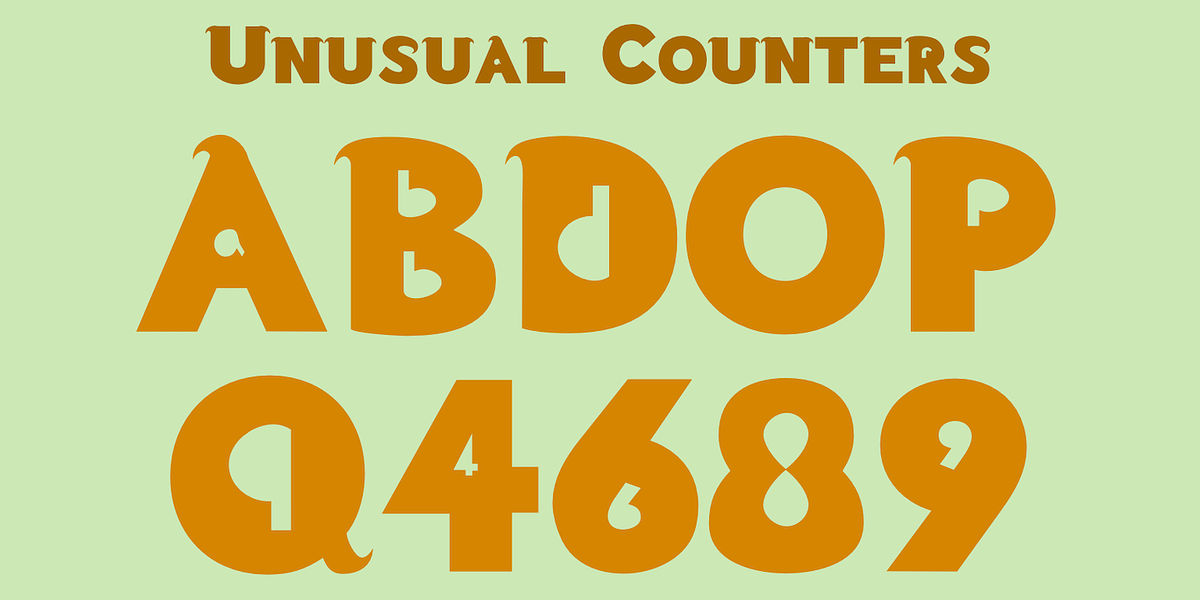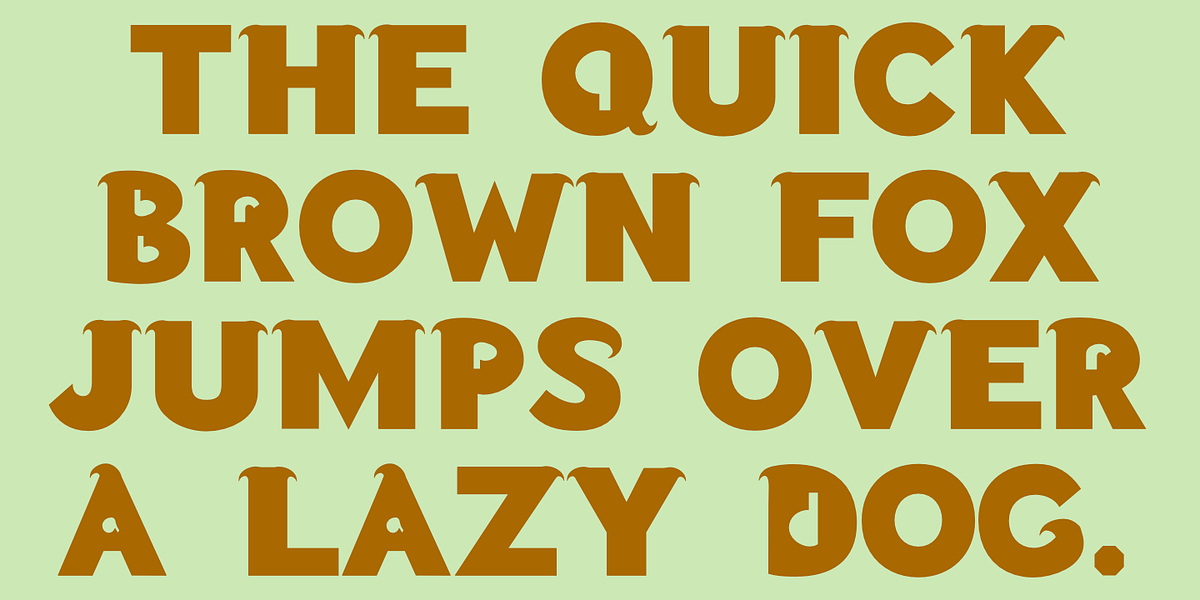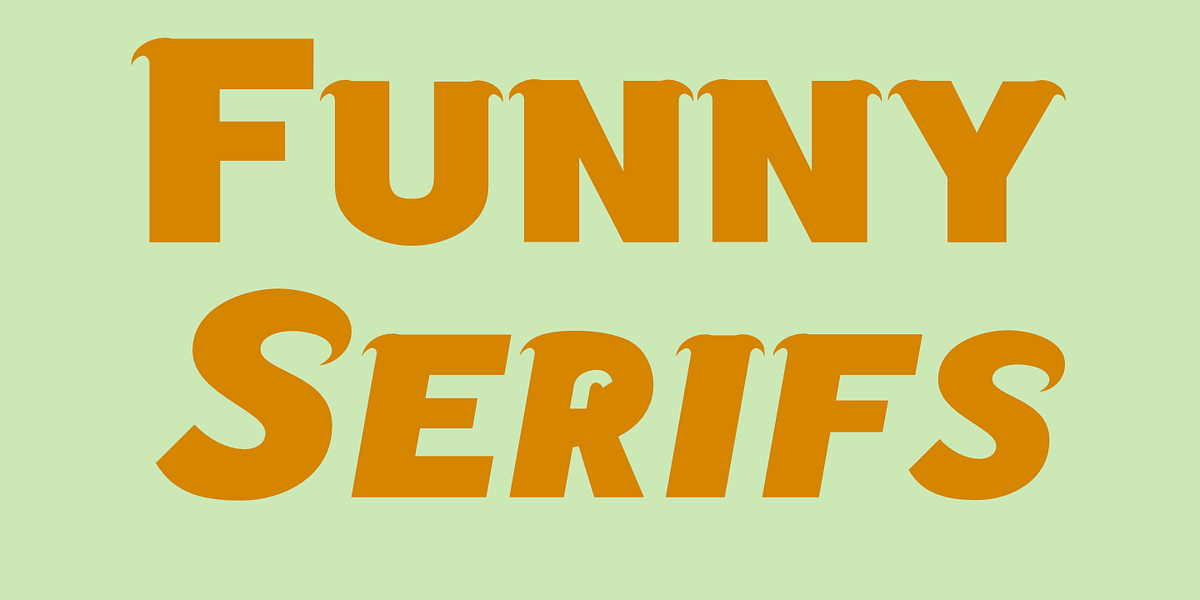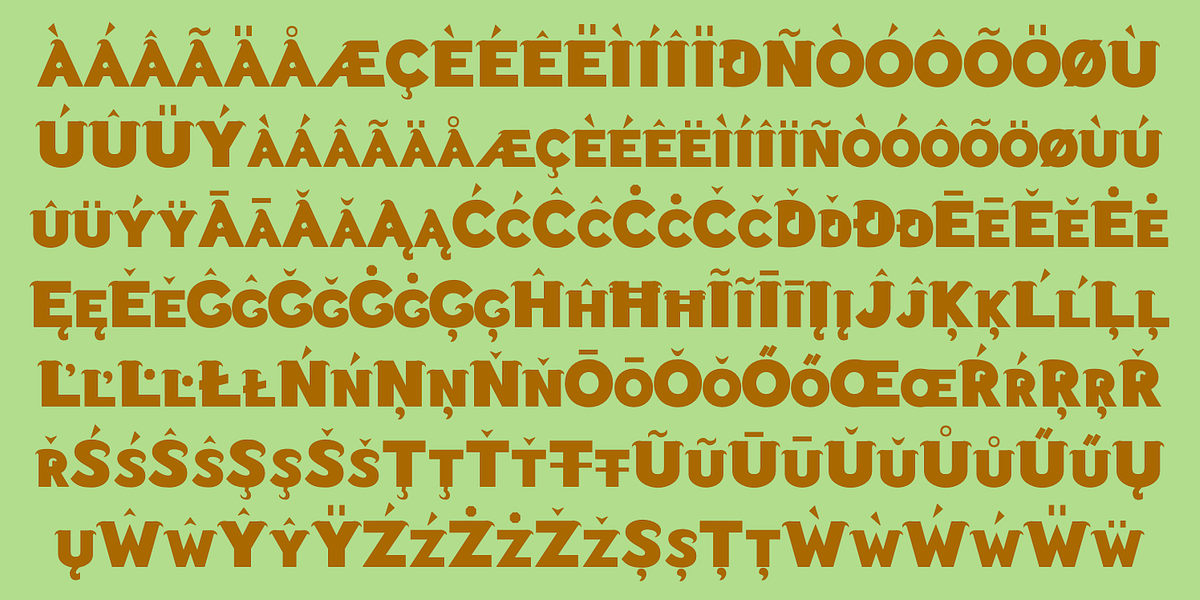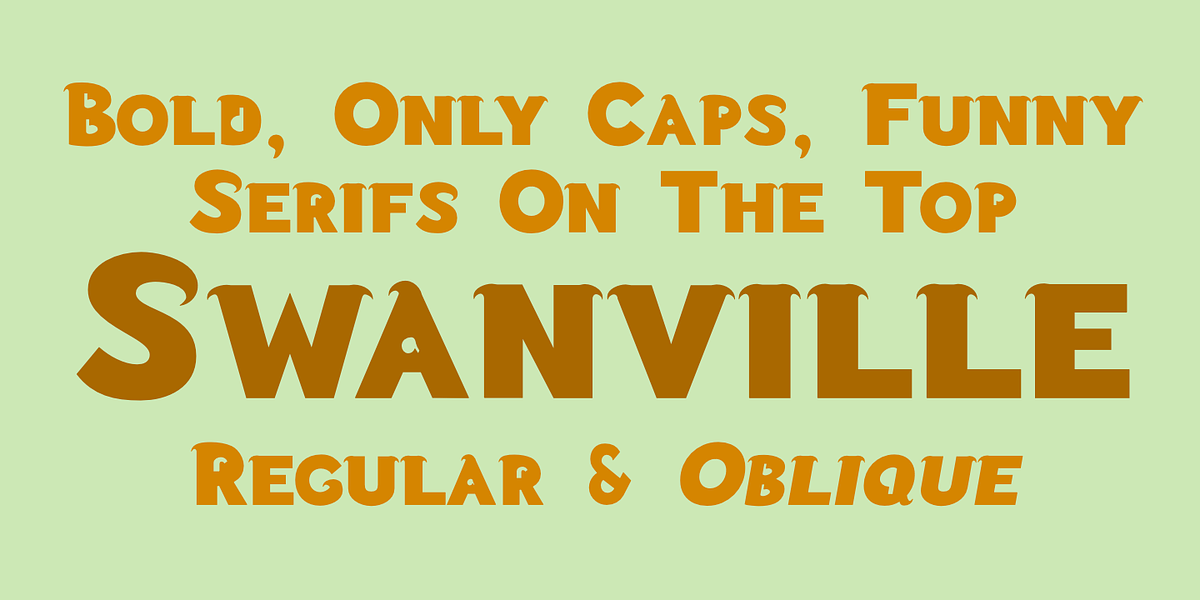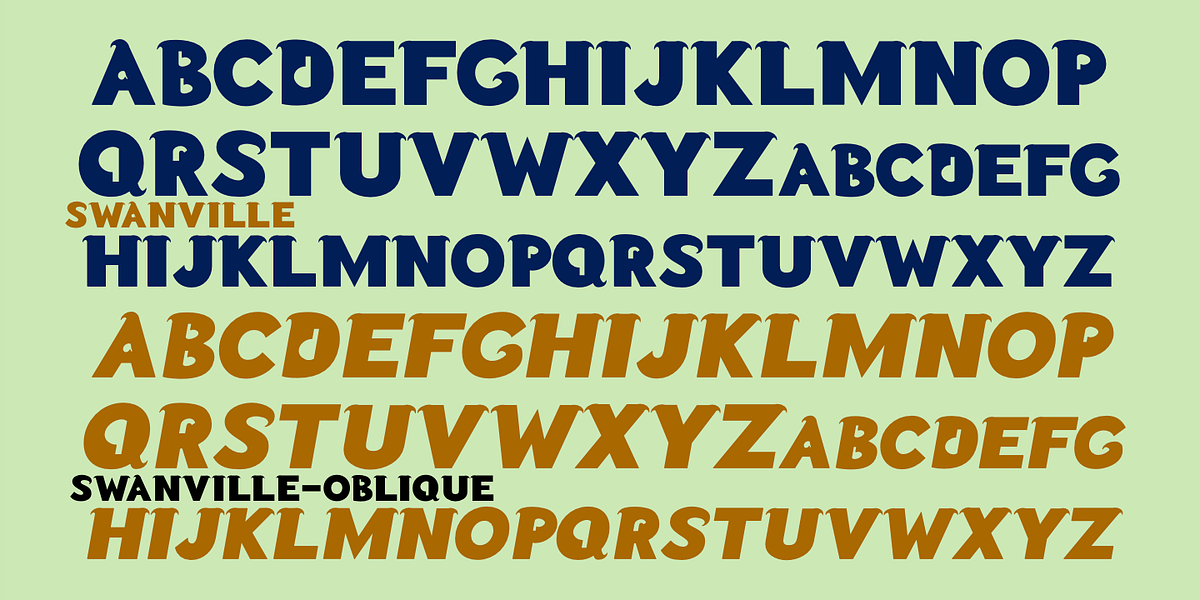
Swanville
Swanville is a bold geometric sans-serif font designed for display purposes. It features a distinctive serif-like element on the top of each letter but lacks serifs on the bottom. The interiors of letters, when present, are shaped like the letter itself, adding to its unique character. Swanville also utilizes small caps, where lowercase letters are smaller versions of their uppercase counterparts.